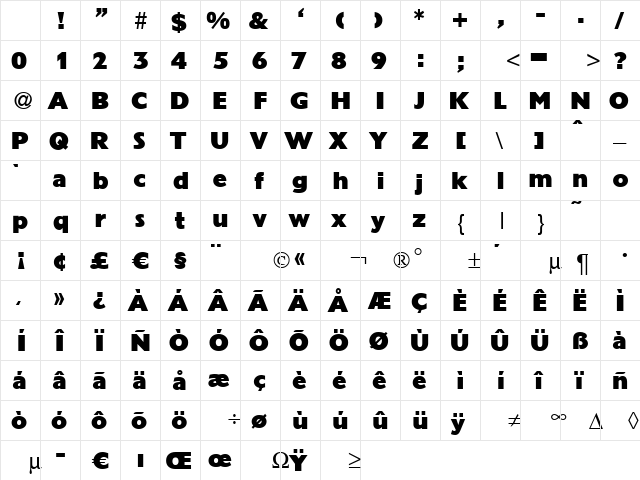
Complete Grandeur Regular glyph index. Displaying only characters natively supported by Grandeur Regular font.
Grandeur is a composed and adaptable typeface that performs quietly and consistently across a wide range of design contexts.